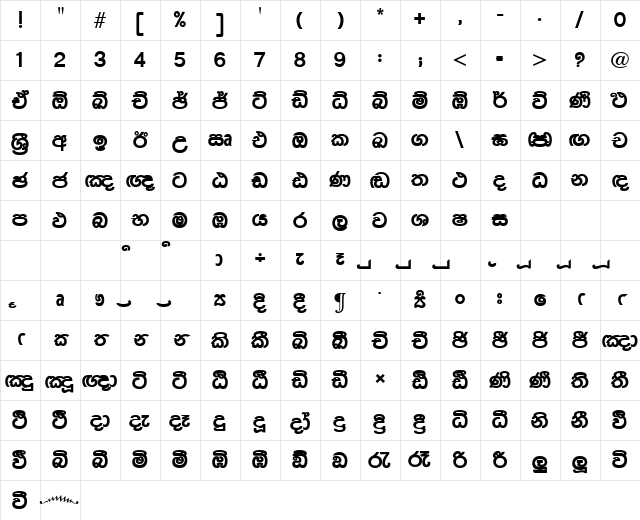
IsiGanganee x
Style: x
Design Context for IsiGanganee
IsiGanganee is a composed and adaptable typeface that performs quietly and consistently across a wide range of design contexts.